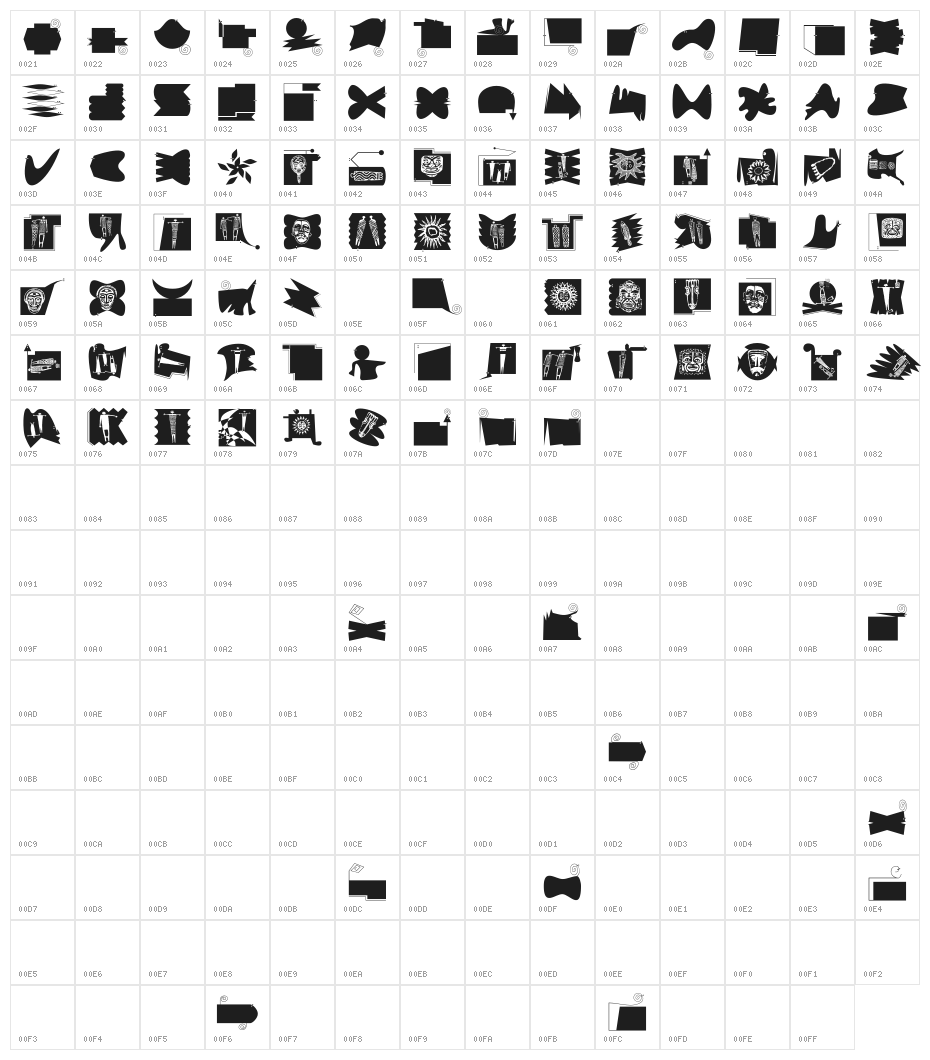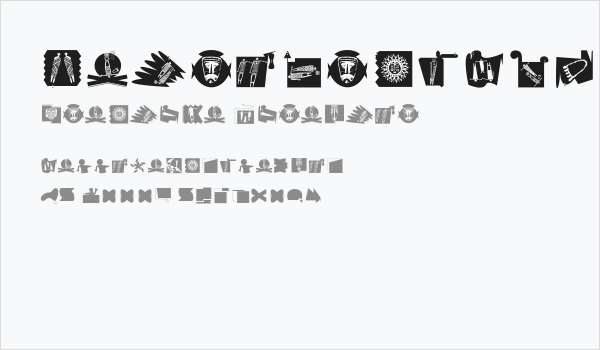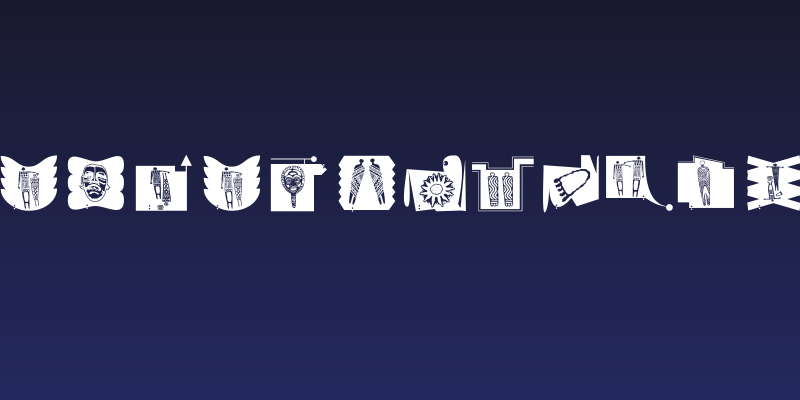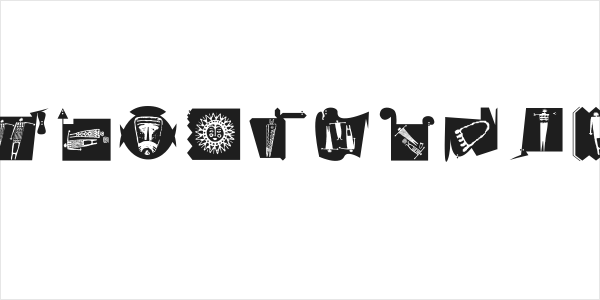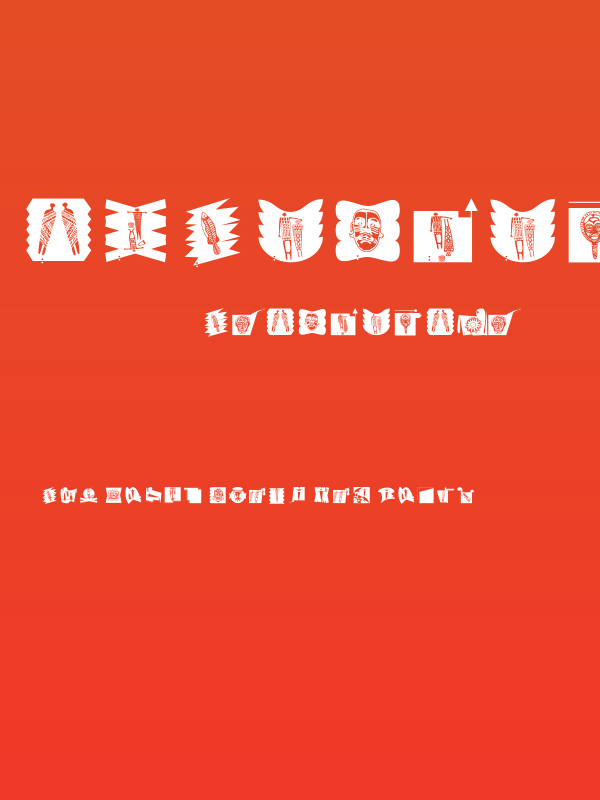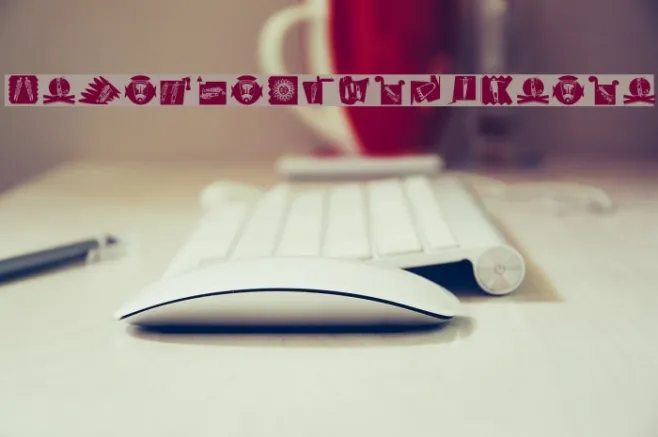
PetrographsInverse Font
PetrographsInverse Description
This font is a highly decorative and artistic typeface, featuring intricate and abstract designs within each character. Each letter and symbol is uniquely crafted with a combination of geometric shapes, lines, and patterns, often resembling ancient or tribal art. The characters are bold and visually striking, making them stand out in any design. The font's style is reminiscent of petroglyphs or ancient carvings, giving it a historical and cultural feel. It is not suitable for body text due to its complex design but can be effectively used for decorative purposes.
| Use Case | Logos, Posters, Artistic Designs |
| Proposed Projects | Ideal for use in artistic projects, cultural event posters, album covers, or any design requiring a historical or tribal aesthetic. |